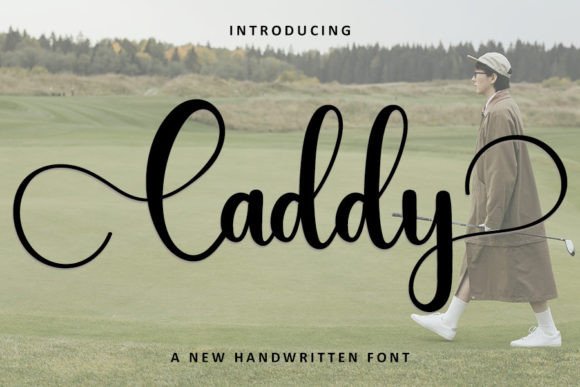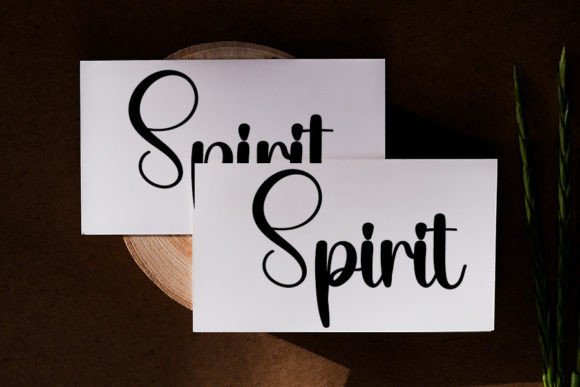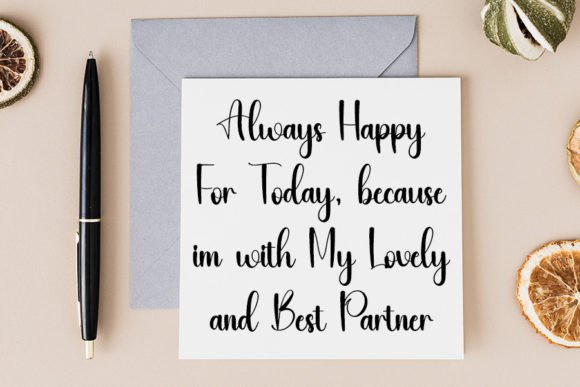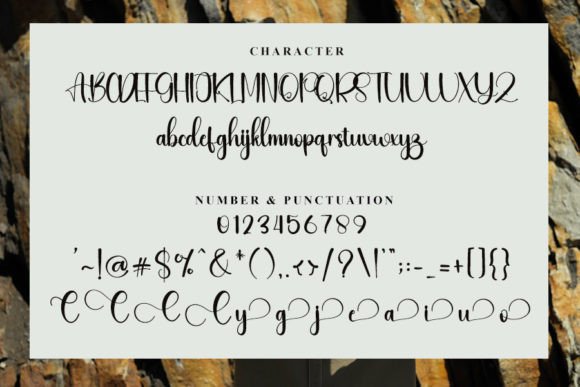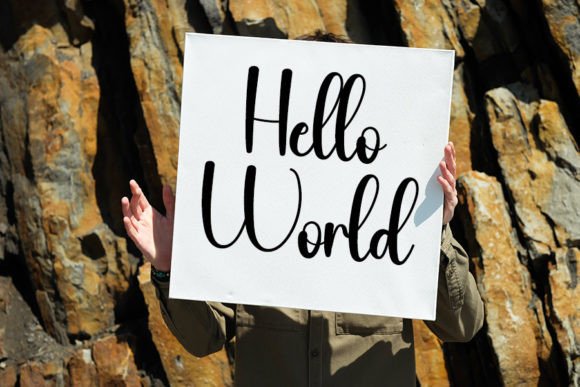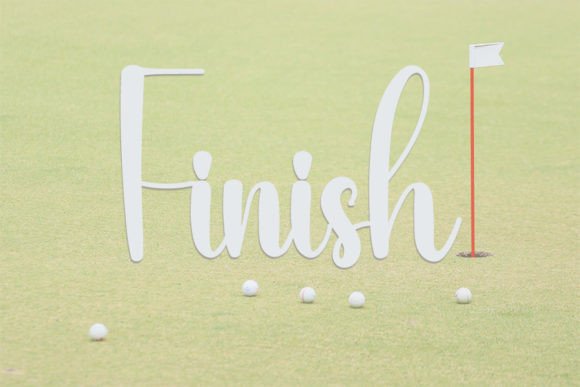
“Caddy is a stylish handwritten font that exudes a contemporary atmosphere and impeccable form, drawing inspiration from timeless classic calligraphy. With a perfect balance and a variety of characters, this font is meticulously designed to enhance the beauty of your projects.
The charm of Caddy lies in its stylish yet timeless quality, where each letter is carefully crafted to exude a sense of sophistication. The contemporary atmosphere adds a modern touch to classic calligraphy, making it suitable for a wide range of design applications.
Designed with balance and variation in mind, Caddy becomes a versatile tool for elevating the aesthetics of your projects. Whether you’re working on invitations, branding materials, or any other creative endeavor, this font stands out as a choice that brings a touch of elegance to your text.
The PUA encoding of Caddy is a valuable feature, allowing easy access to its amazing glyphs and ligatures. This user-friendly aspect enhances the font’s adaptability, providing creative flexibility to customize your designs with ease.
Imagine Caddy enhancing the beauty of your projects, adding a stylish and contemporary touch to your text. Its impeccable form becomes the defining element that sets your designs apart, creating a visual experience that resonates with timeless elegance.
As you explore the nuances of Caddy, you’ll discover its potential to transform ordinary projects into visual masterpieces. Let it be the font that brings a touch of sophistication to your creative endeavors, making them stand out with the artistry of contemporary calligraphy. With Caddy, every stroke becomes a testament to the beauty of handwritten typography.”